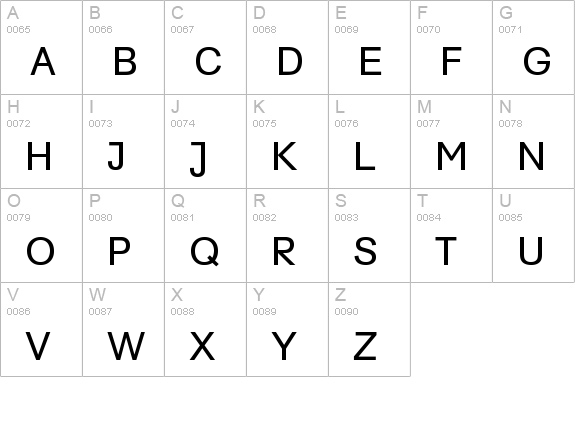
Akzidenz-Grotesk Schulbuch Regular Font Details
Akzidenz-Grotesk Schulbuch Regular is the standard, neutral variant in the Akzidenz typeface family \xE2\x80\x94 well suited to general body text, paragraphs, and standard typographic work.
Akzidenz-Grotesk Schulbuch Regular font is a versatile and classic typeface that combines modern simplicity with a touch of elegance. Its clean lines and balanced proportions make it ideal for a wide range of design projects, from editorial layouts to branding materials. This timeless font exudes a sense of sophistication and professionalism, making it a popular choice among designers and typographers. The Akzidenz-Grotesk Schulbuch Regular font is perfect for conveying a message that is clear and concise, while still maintaining a sense of style and sophistication. And the best part? This high-quality font is available for free download at FontsMarket.com. Whether you're working on a personal project or a professional design, Akzidenz-Grotesk Schulbuch Regular font is sure to elevate your work and make a lasting impression. Download it today and add a touch of timeless elegance to your designs!